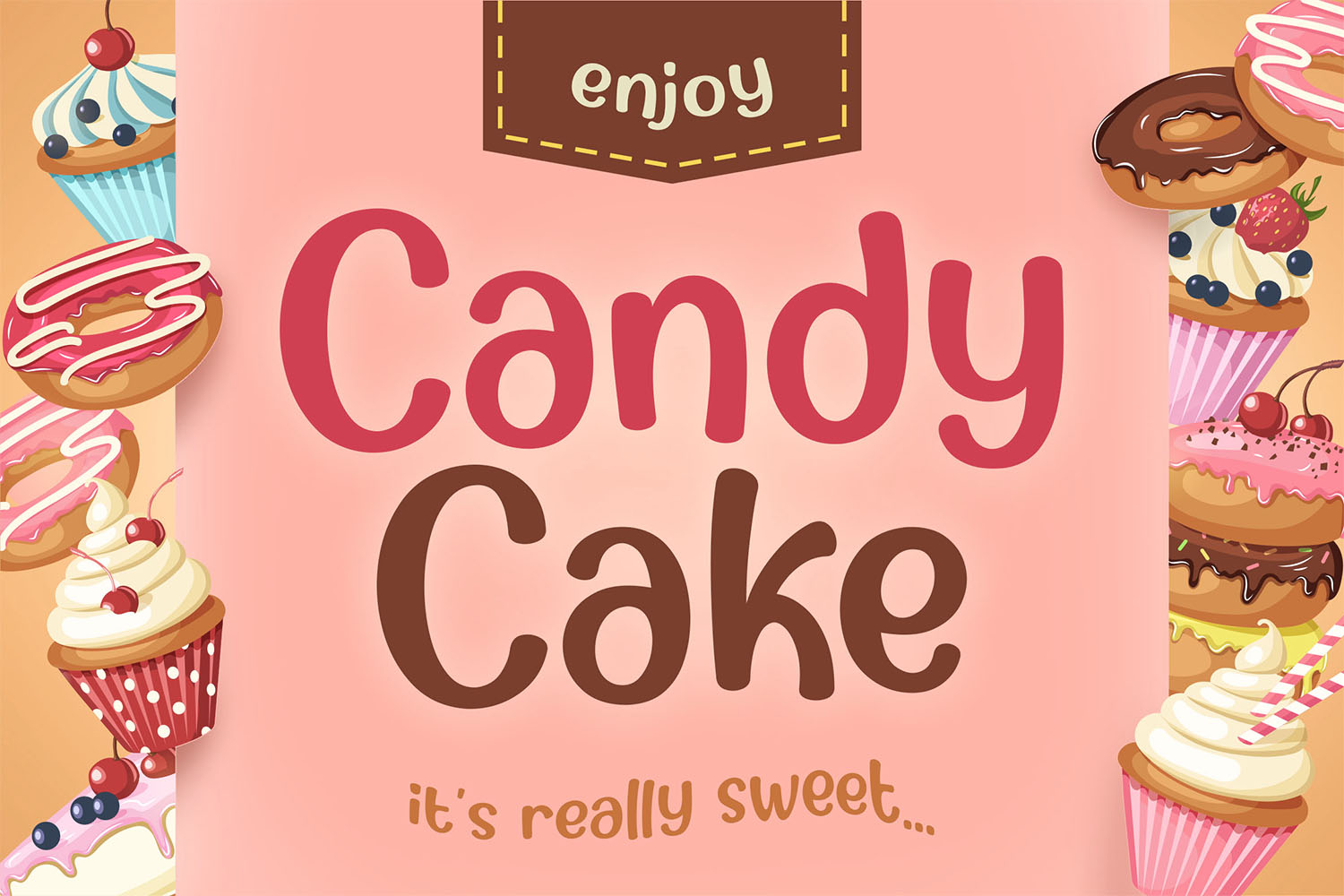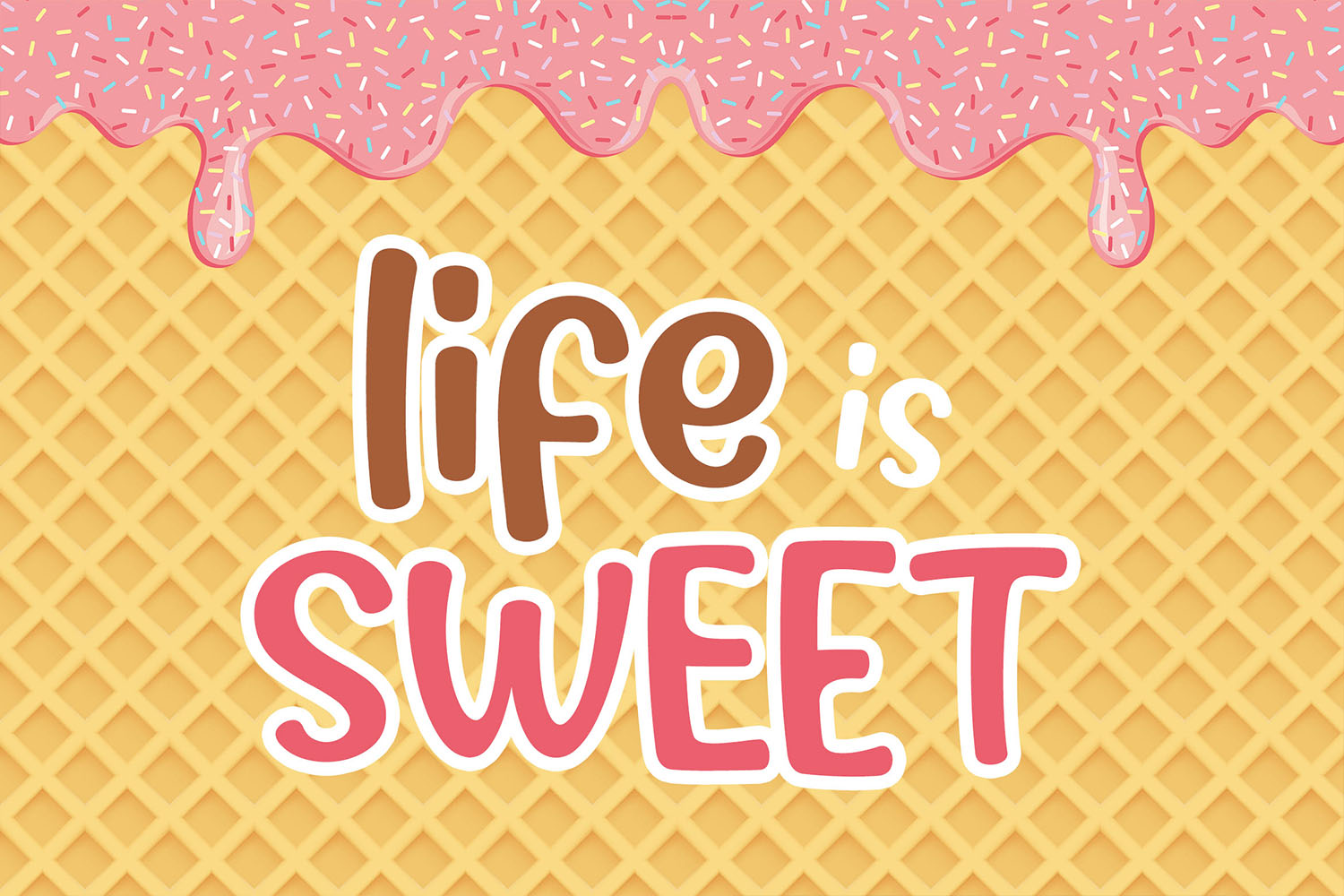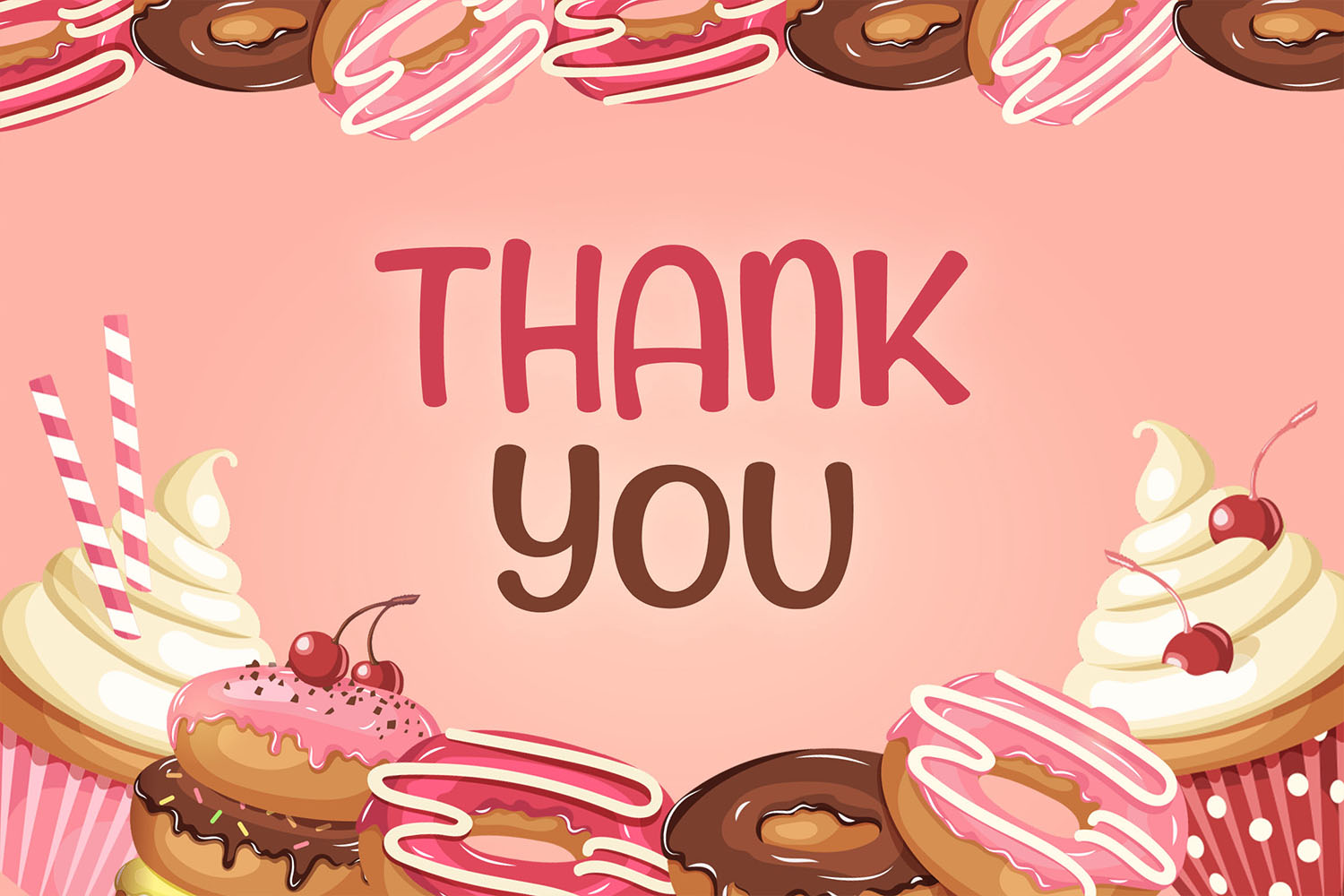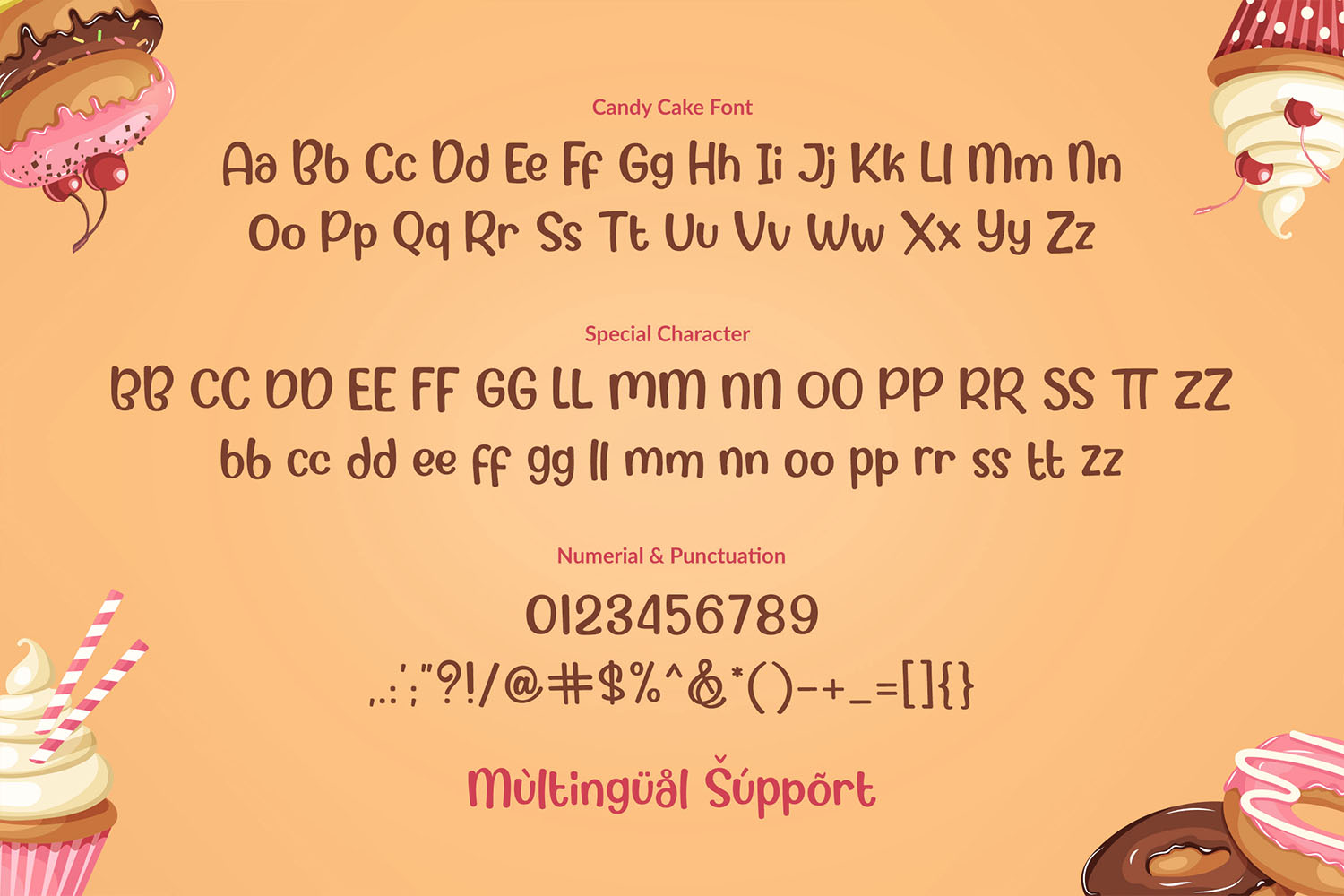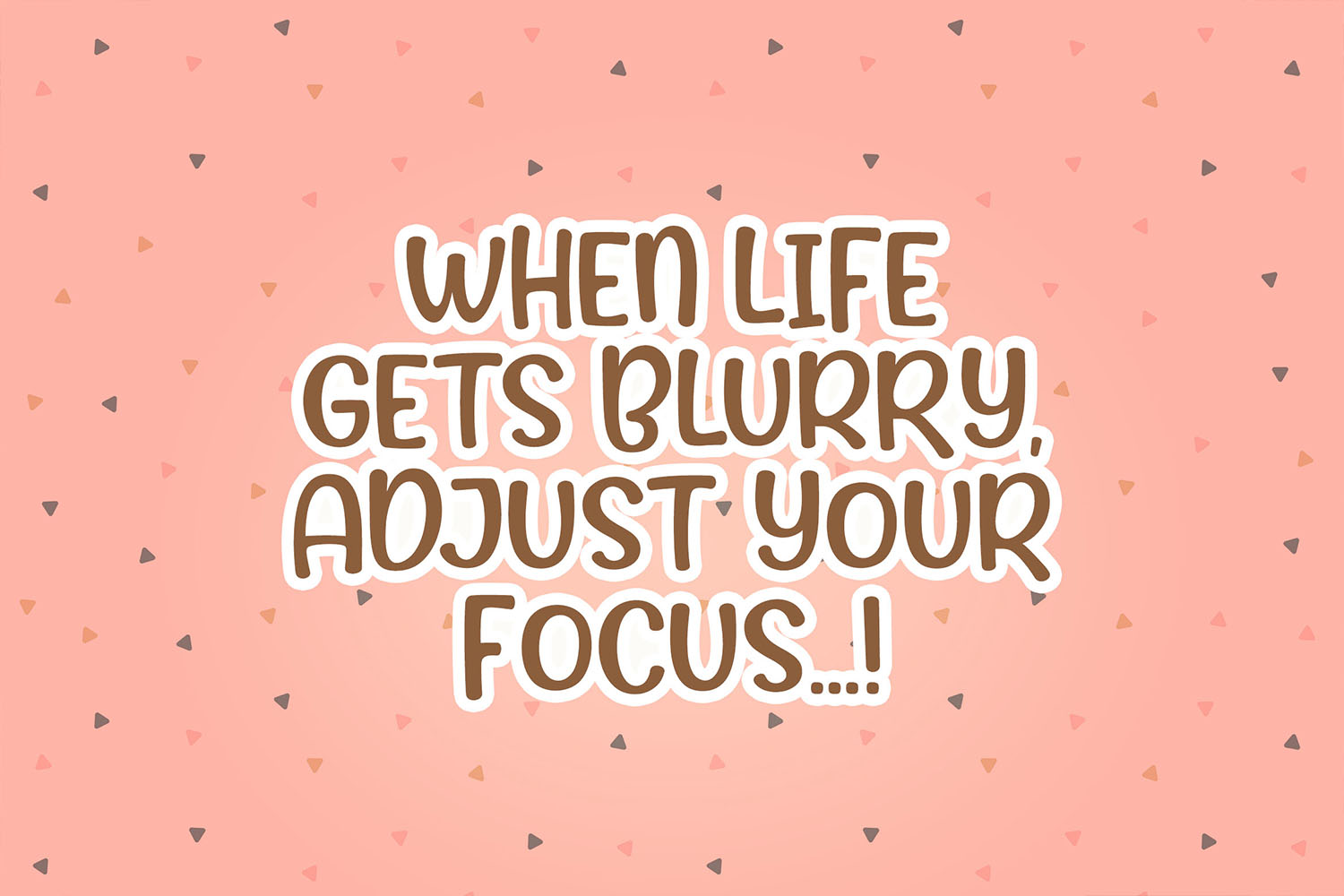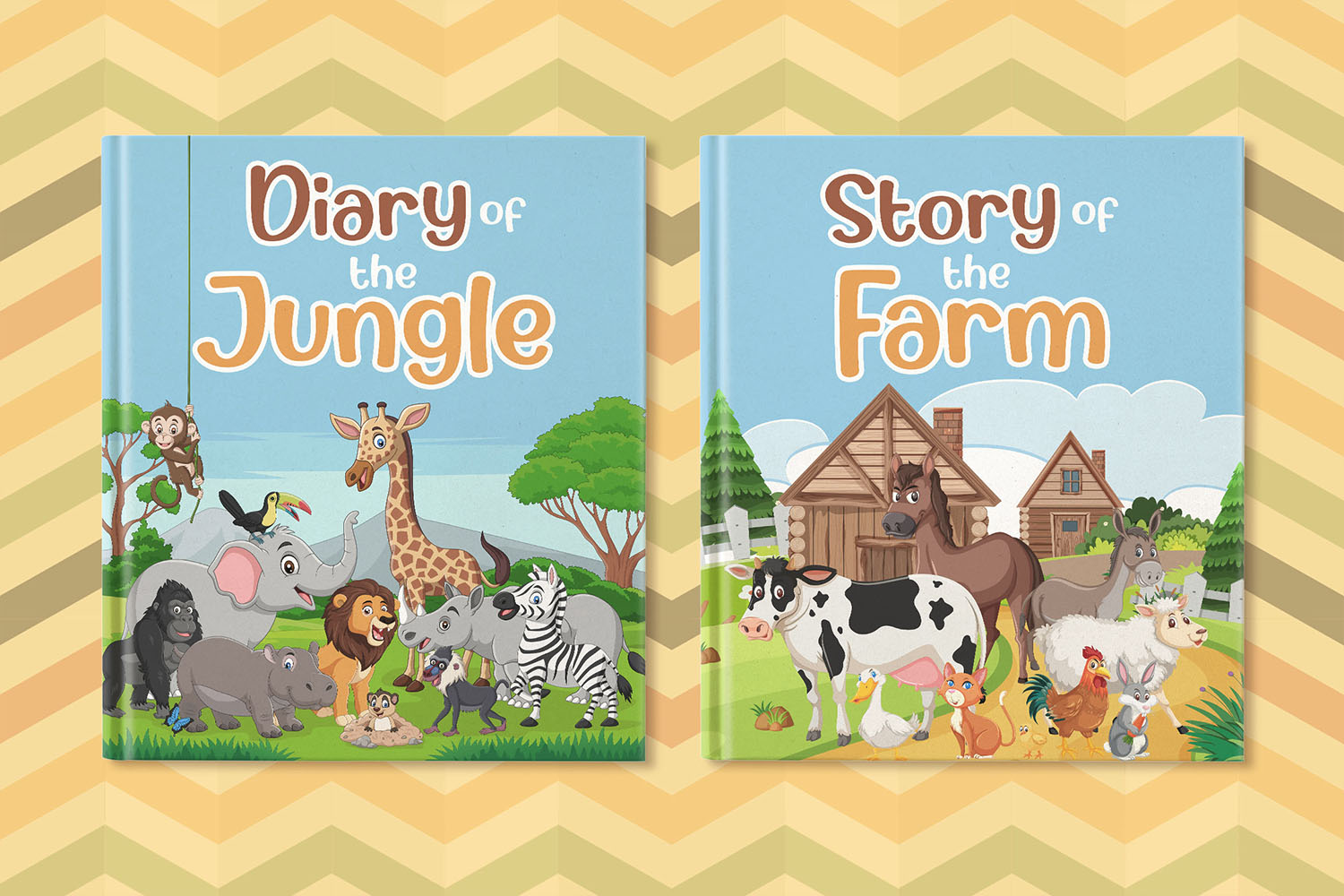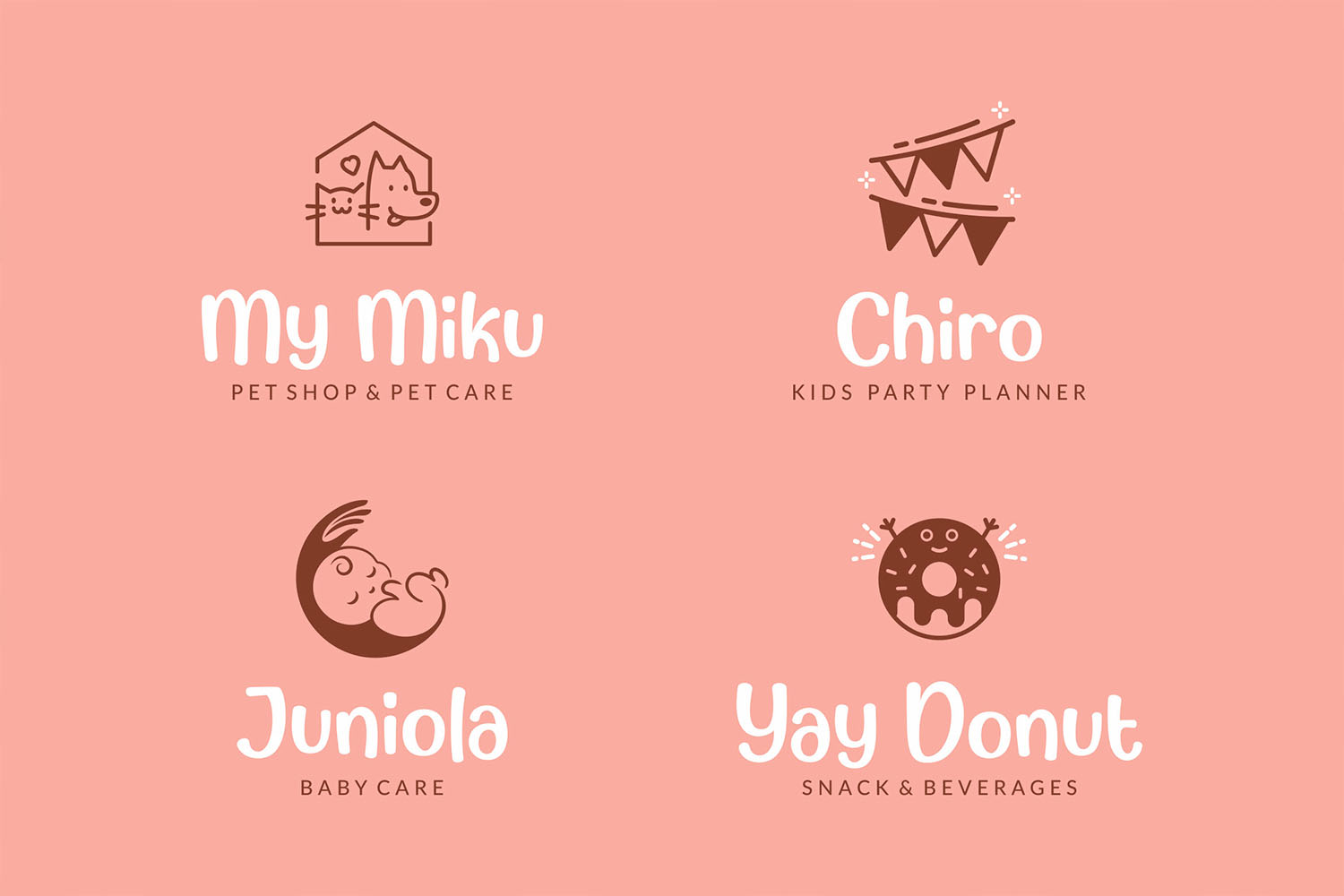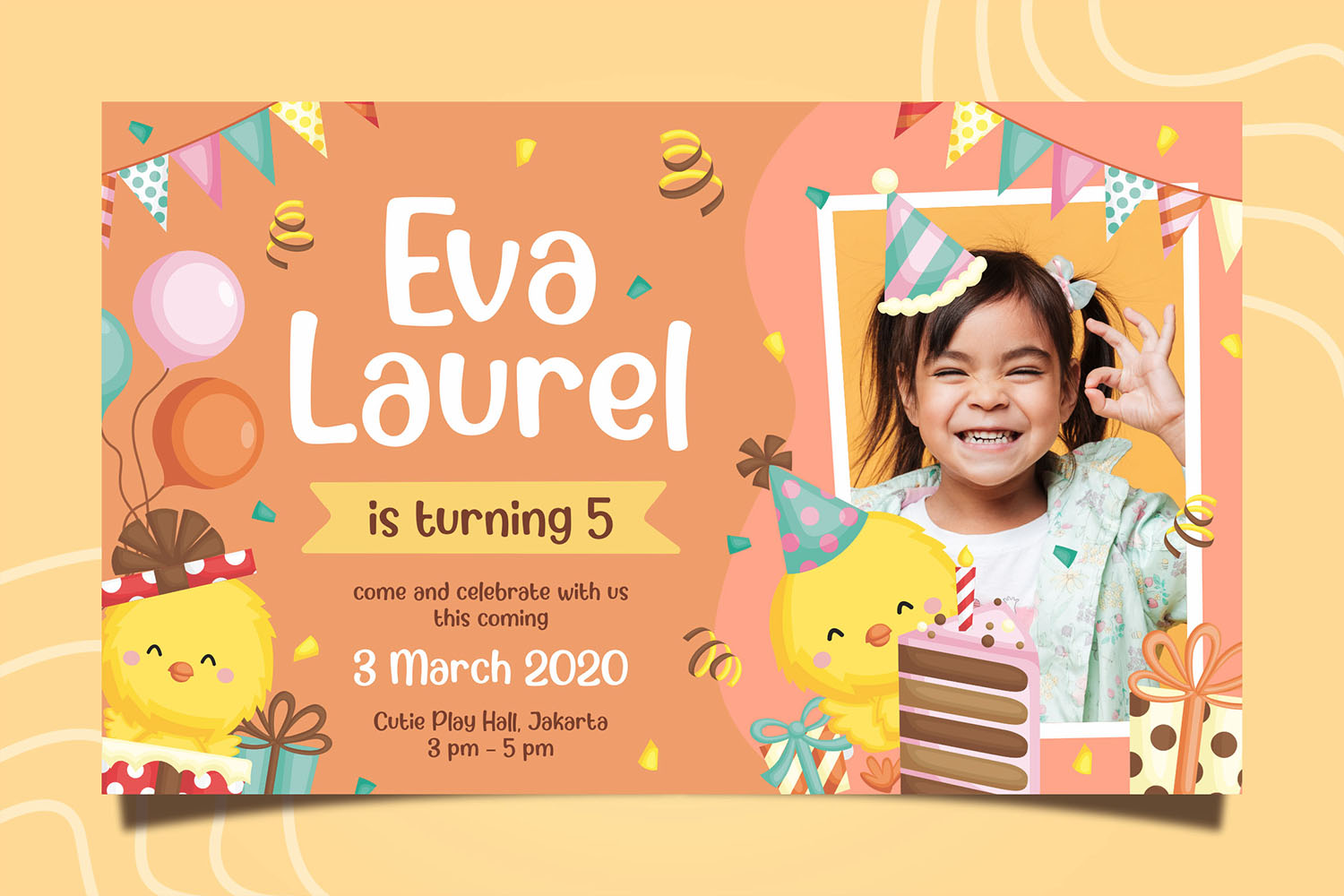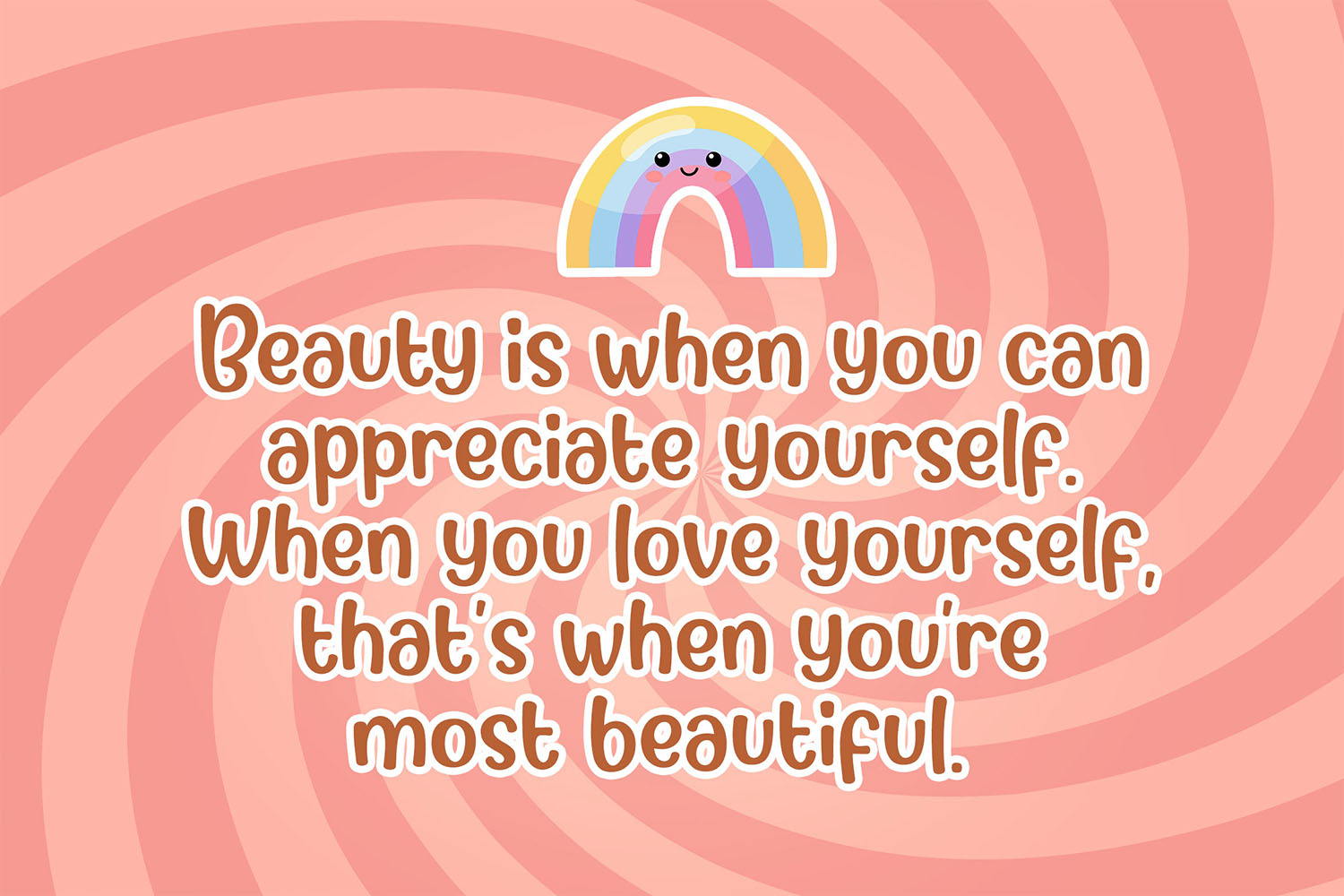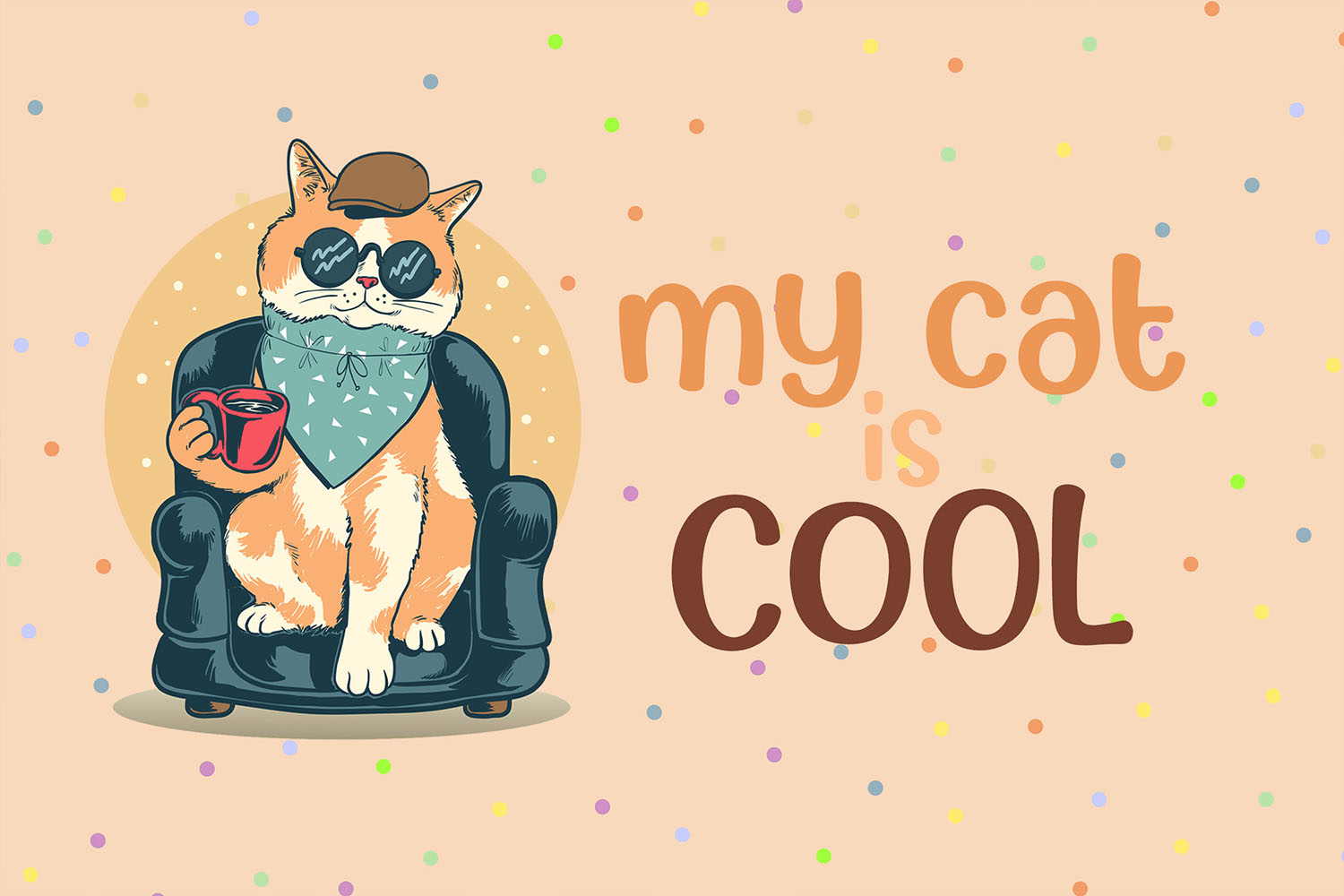
Candy Cake
Candy Cake is a cute and sweet display font. The authentic lovely & fun touch makes it a perfect mates for your projects, in any design purposes.